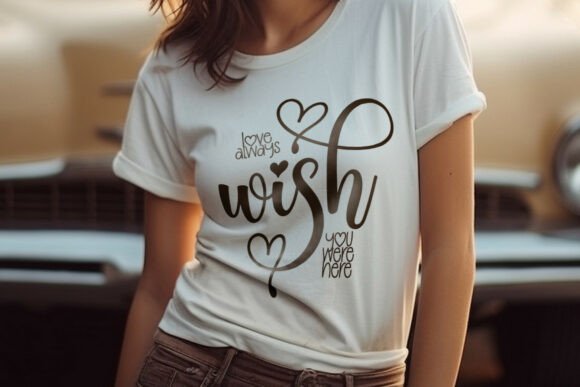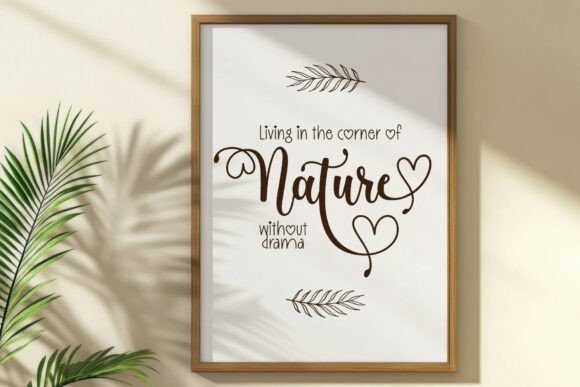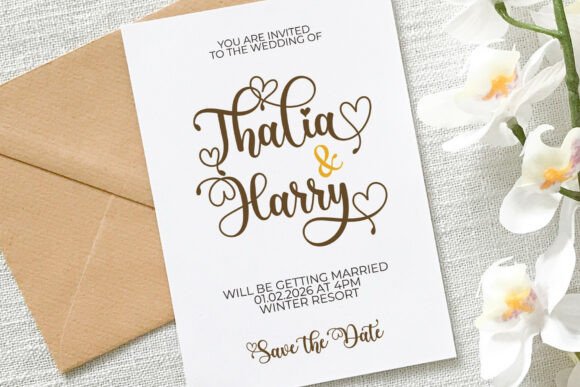
Introduction to Kinsky Font
Do you remember that moment when you’re working on a creative project, and everything comes together – the color palette, the typography, the imagery – and it’s just pure magic? For designers, that feeling is what drives us to keep pushing the boundaries of what’s possible. And that’s exactly what the Kinsky Font does – it adds a touch of elegance and modernity to any design, making it a valuable resource for creatives everywhere.
Whether you’re a seasoned pro or just starting out, the Kinsky Font is a high-quality design resource that’s sure to elevate your work. With its sophisticated script style, this font is perfect for designers who want to add a touch of sophistication to their projects. And the best part? It’s available for free download, making it accessible to designers of all levels.
From logos to invitations, the Kinsky Font is the perfect choice for any creative project that requires a touch of class and sophistication. And with its transparent background, you can easily layer it over any image or design element, giving you complete control over the look and feel of your project.
Kinsky Font
- Designed with a unique aesthetic, Kinsky Font offers a distinctive look for creative projects.
Honest Review: Kinsky Font
I recently came across the Kinsky Font while searching for a design resource for a creative project. As a designer, I was excited to try it out and see if it would meet my expectations. The Kinsky Font offers a free download option, which is always a plus.
What works well with the Kinsky Font is its high quality and sleek design. It’s perfect for titles and headings in a design. I also appreciate that the font has a transparent background, making it easy to use in various design scenarios.
- Perfect for titles and headings
However, I did notice a few limitations with the Kinsky Font. ⚠️ It’s not suitable for large blocks of text due to its condensed design. Additionally, it’s not as versatile as other fonts in terms of font sizes and styles.
Overall, I’m impressed with the Kinsky Font and would recommend it for creative projects that require a high-quality, eye-catching font. It’s a great addition to any designer’s arsenal, especially for titles and headings. ✨
The Kinsky Font is commonly used in a variety of creative projects, including:
- Graphic design and branding
- Print design and marketing materials
- Digital art and illustration
By incorporating Kinsky Font into your next creative project, you’ll be able to add a touch of sophistication and elegance. Its high quality and free download option make it accessible to designers of all levels, from beginners to professionals. So why not give it a try? Download Kinsky Font today and discover the endless possibilities it has to offer. We’re confident that you’ll love its unique style and find it to be a valuable asset in your design journey.